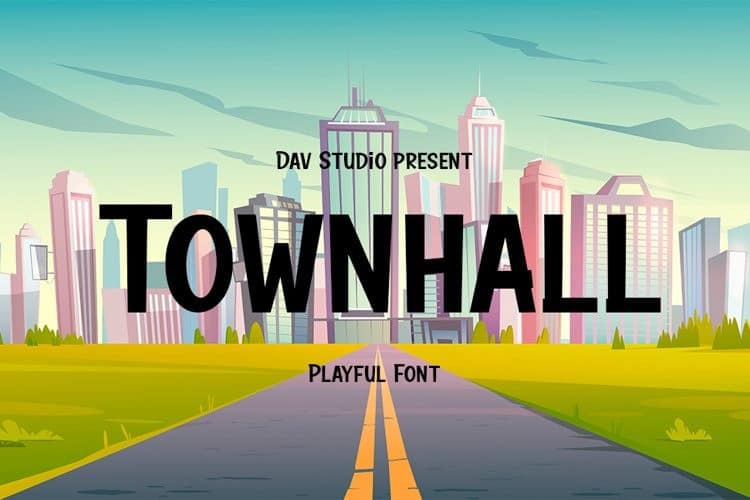
Townhall Display Font
Townhall Font is a wonderful new display typeface that can take you on an adventure! Perfect for any little explorers in your life and works well with others for use in quotes! No need to dream of all the things you could do with this beauty.
Townhall is a playful font with artistic elements in it. It is suitable for games, movies, posters, cartooning, mockup and other DIY projects. This font is free for PERSONAL USE.